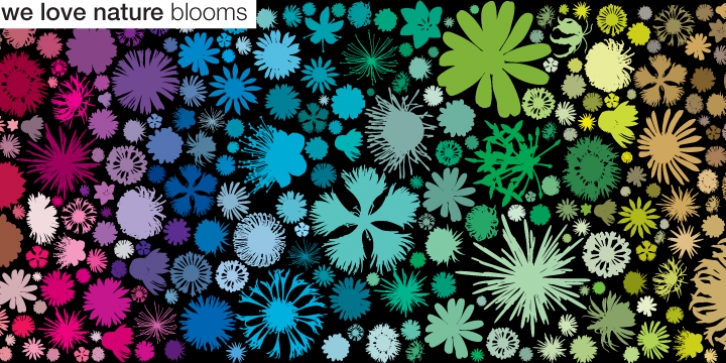
We Love Nature Blooms was published by kapitza. We Love Nature Blooms contains 1 style.
A beautiful new addition to our We Love Nature flower font collection. We Love Nature Blooms consists of 52 highly detailed drawings of buds and blooms which can be used on their own or in combination with the other illustrations in the 'We Love Nature' font collection.
All illustrations are drawn by hand and of the highest quality.